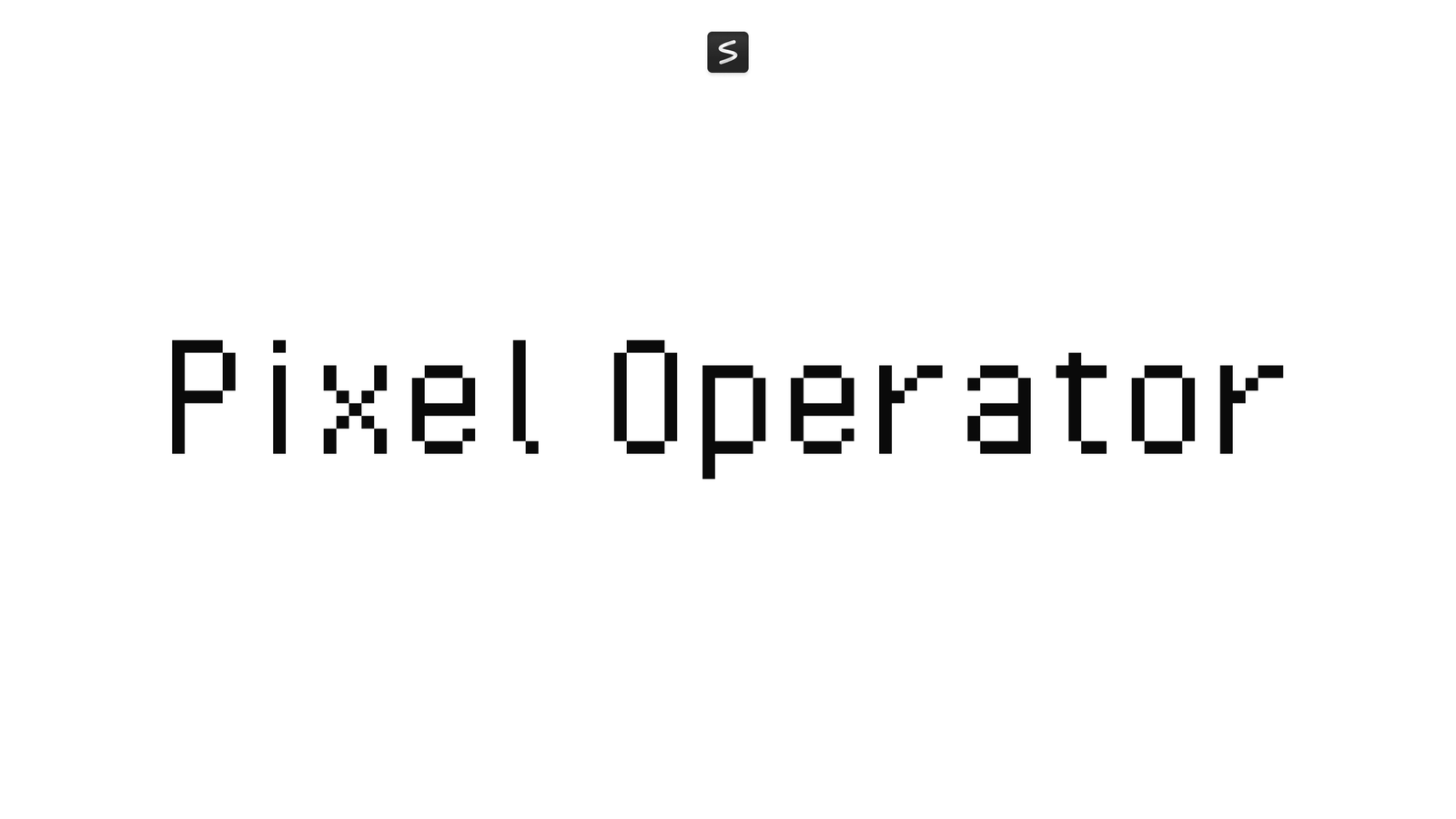
Pixel Operator is a bitmap font created by Jayvee Enaguas that captures the clean geometry of 8-bit computer displays. Available in both proportional and monospace variants, it strips away unnecessary detail to deliver straightforward, grid-aligned letterforms that feel at home in digital interfaces, retro game projects, and pixel-art contexts.
The font’s strength lies in its legibility at small sizes and its consistency across variants. Each character sits cleanly on the pixel grid without flourishes, making it equally useful for technical UI design, terminal aesthetics, or nostalgic branding. The monospace version works particularly well for code editors and retro computing themes, while the proportional cuts suit display work and headlines.
Pixel Operator is well-suited for indie games, lo-fi interfaces, chiptune album artwork, retro posters, and any project where that clean digital look feels intentional rather than accidental. Released under CC0 license and actively maintained since 2009, it remains a solid choice for designers seeking straightforward pixel-grid authenticity.